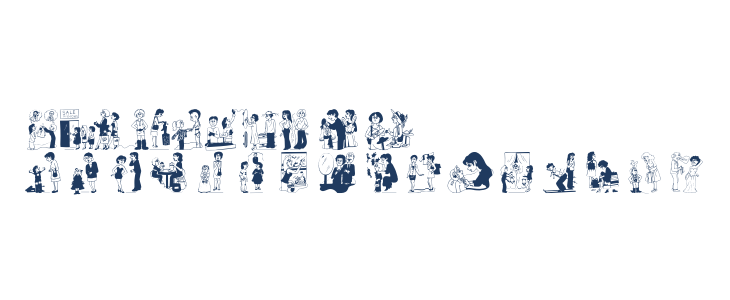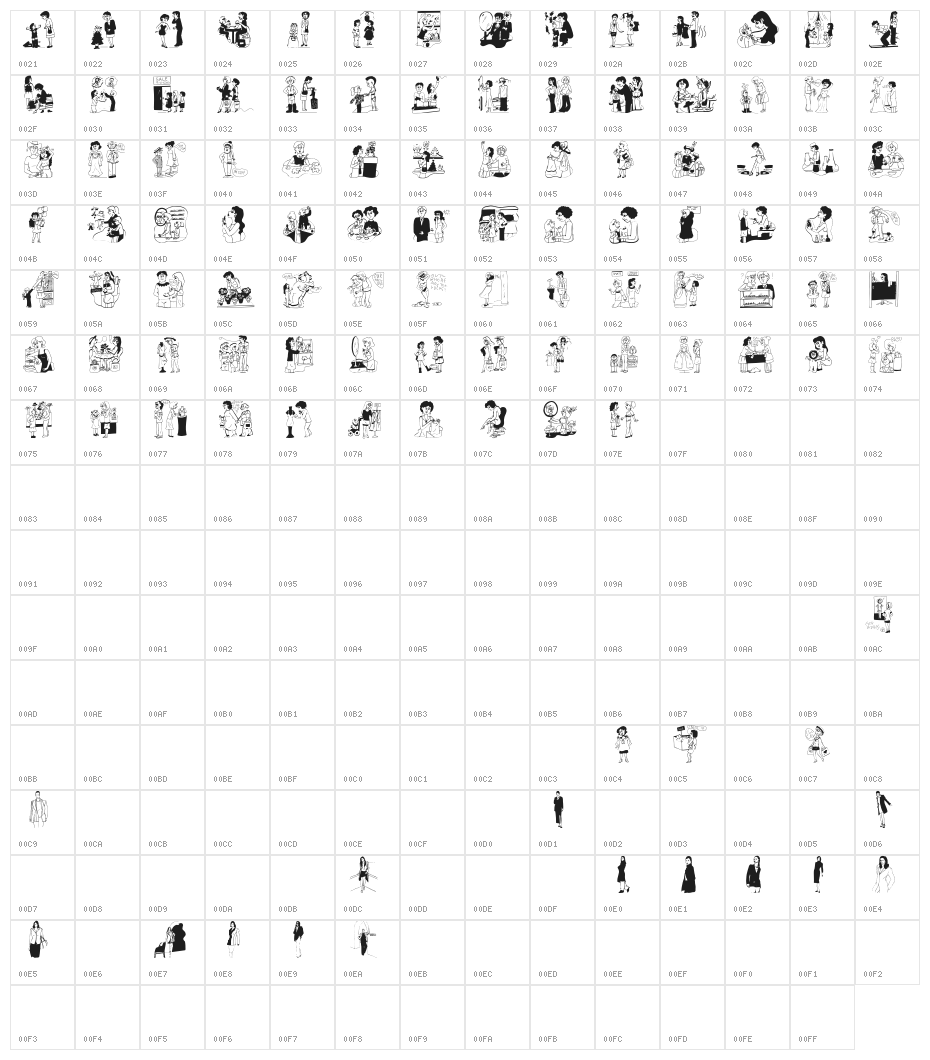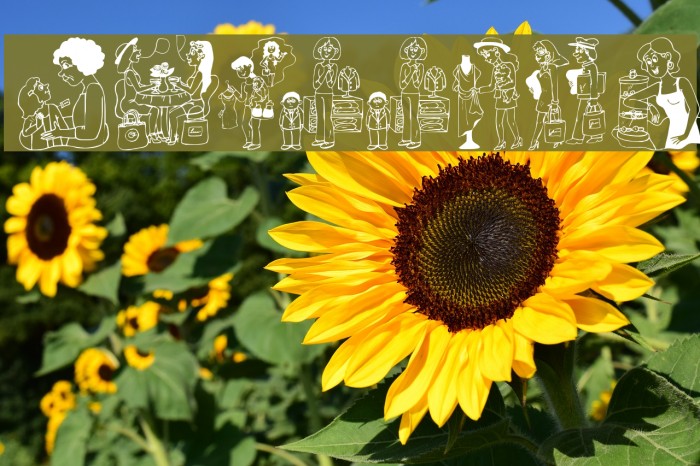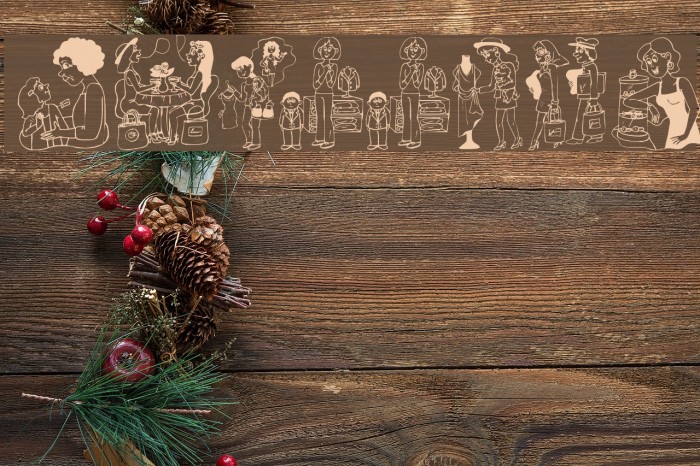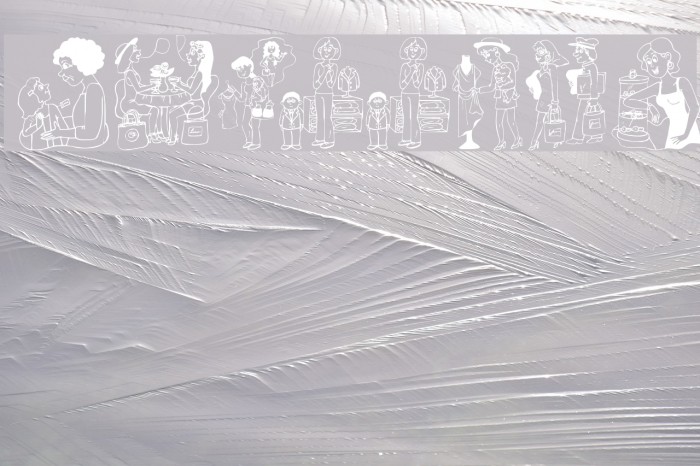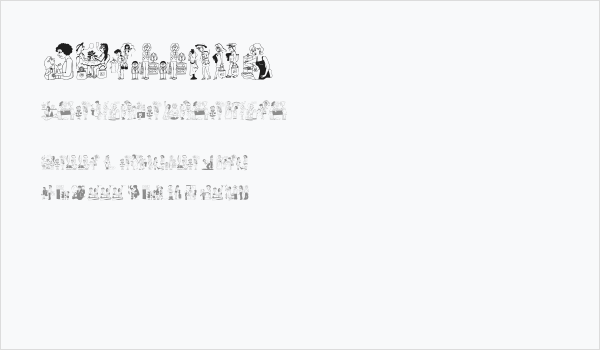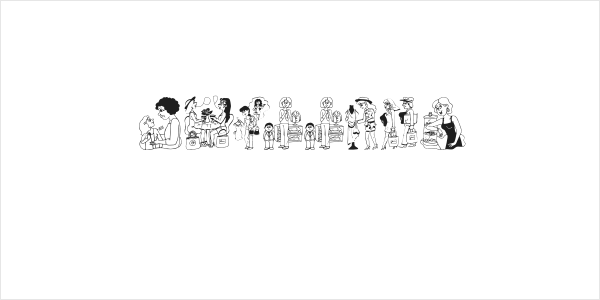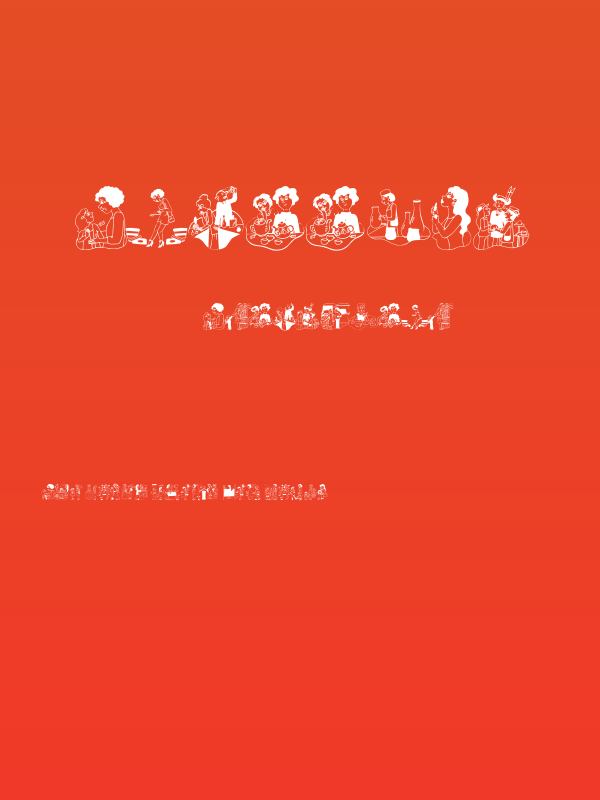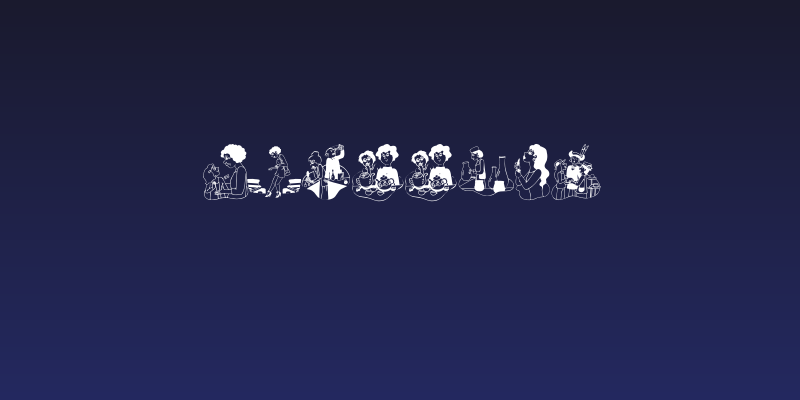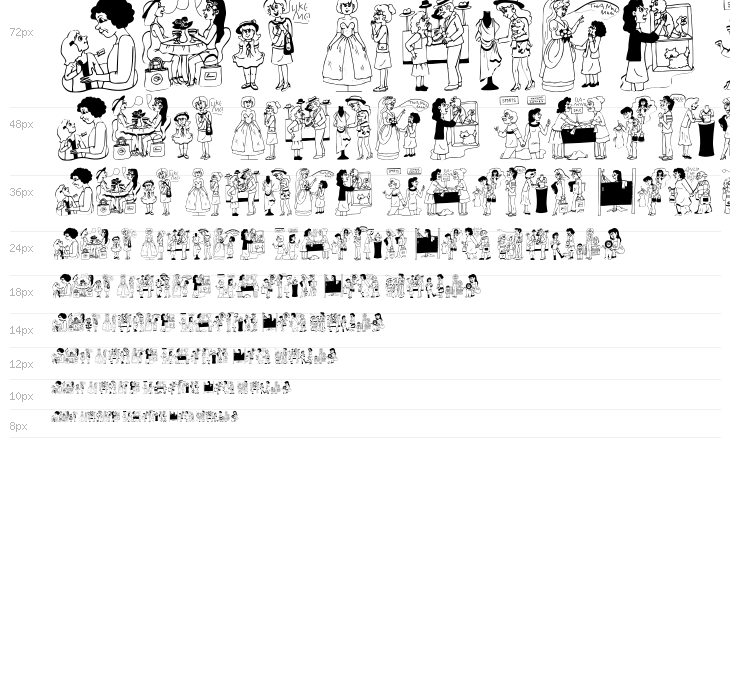
Shopping Font
Shopping Description
A decorative and illustrative font where each character is formed by detailed black and white line drawings of people engaged in various shopping-related activities. The characters are highly stylized and narrative, depicting scenes such as buying, selling, browsing, and interacting in retail environments.
| Overall Style | Whimsical, Narrative, Decorative |
| Use Case | Headlines, Logos, Themed promotional materials |
| Proposed Projects | Retail branding, advertising campaigns, promotional materials for shopping events, themed invitations, and creative packaging designs. |